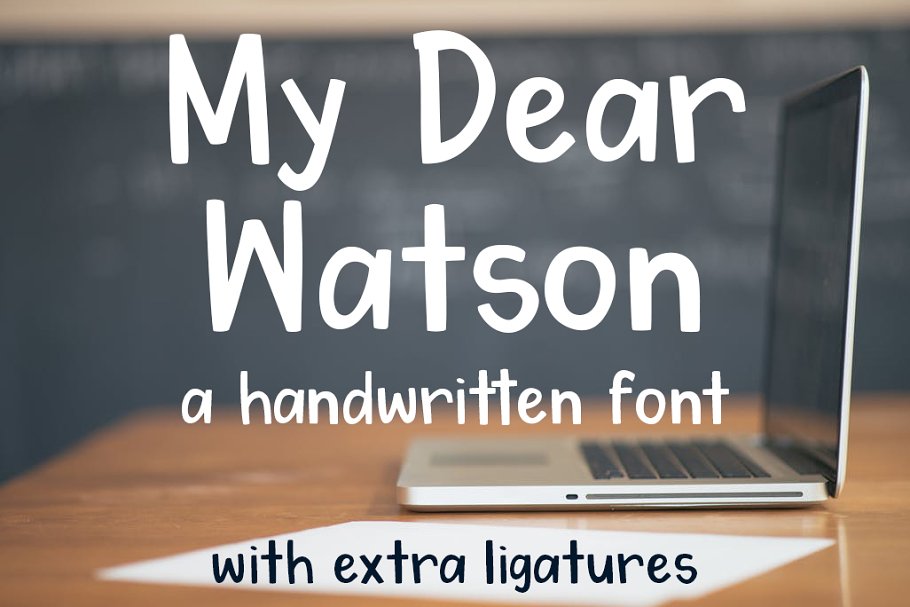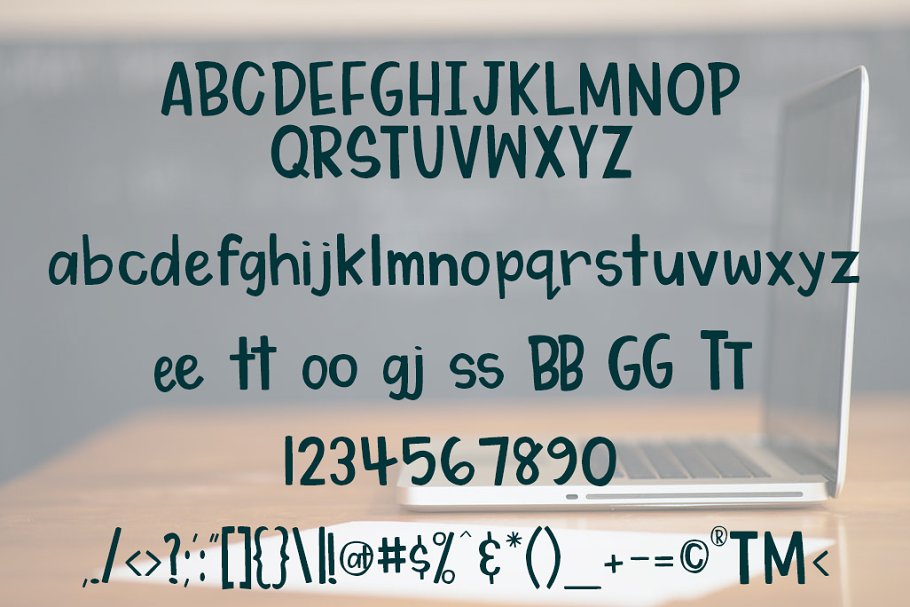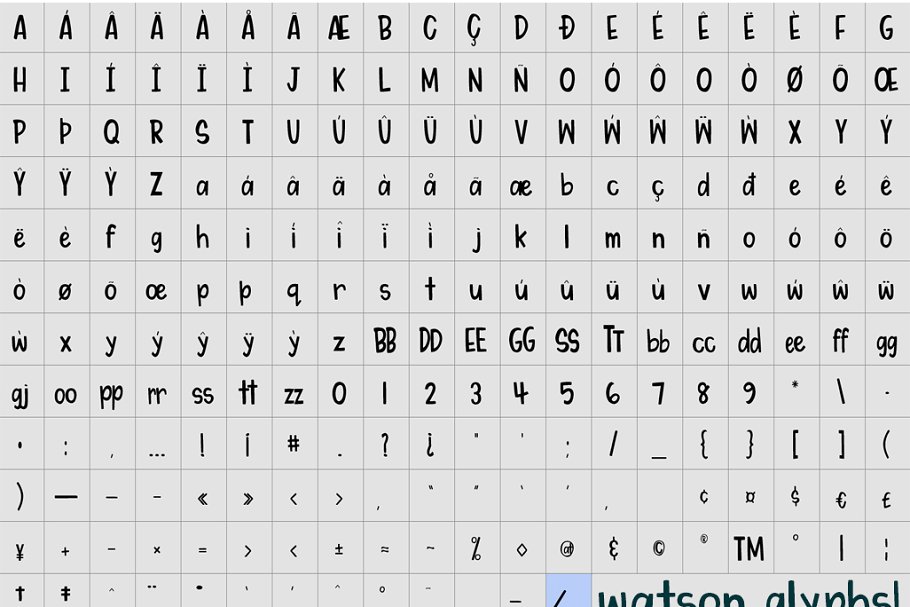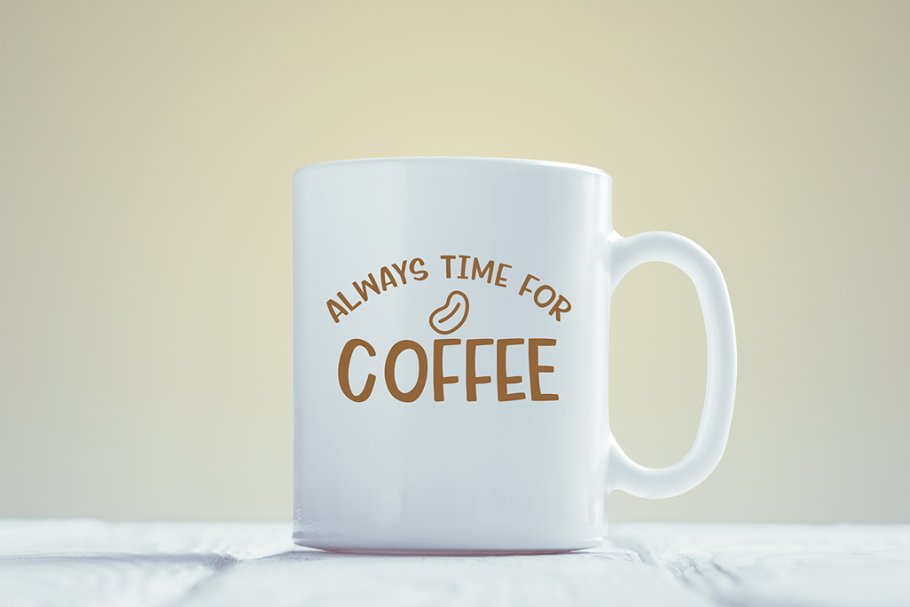
About the My Dear Watson Font
Inspired by my passion for hand-lettering, My Dear Watson is a bold, clean, and fun font that looks great on greeting cards, perfect on mugs and combines seamlessly on just about any hand lettered project that comes your way, Font includes:UPPERCASElowercaseNumbers & SymbolsWestern European Glyphs (Please test your characters in the font previewer below before purchase